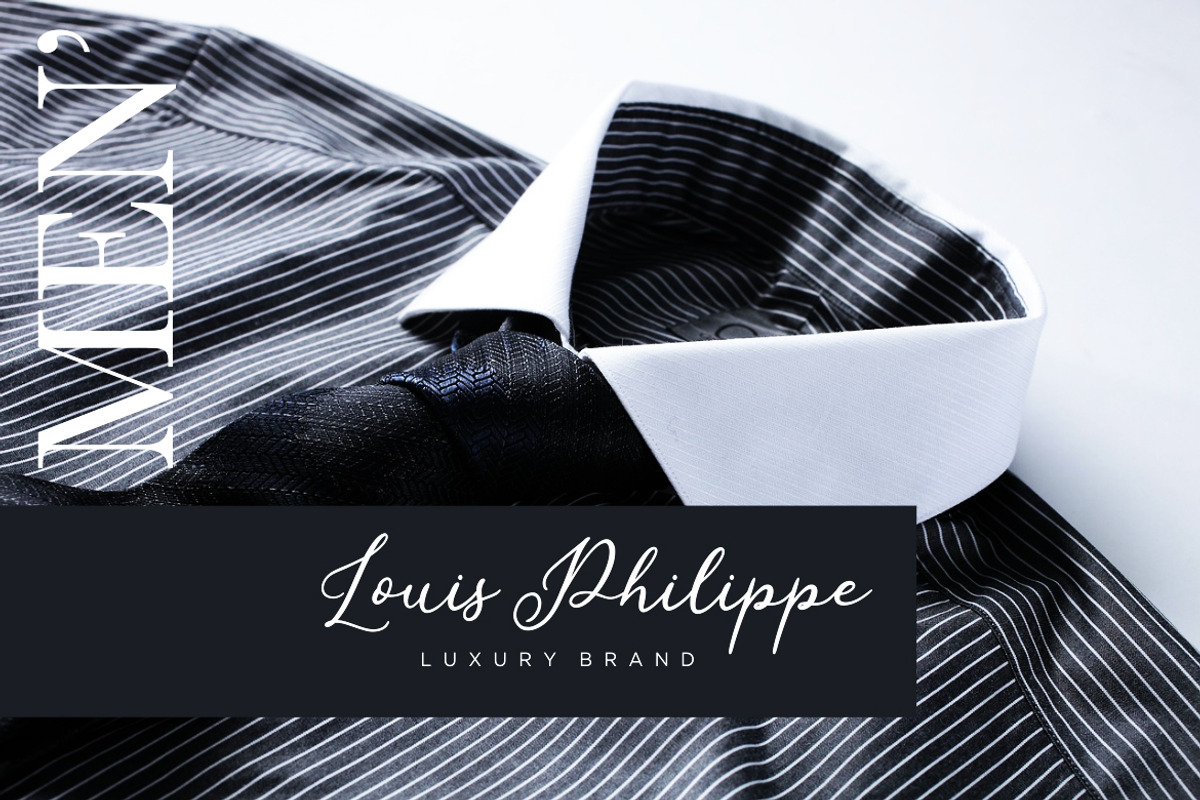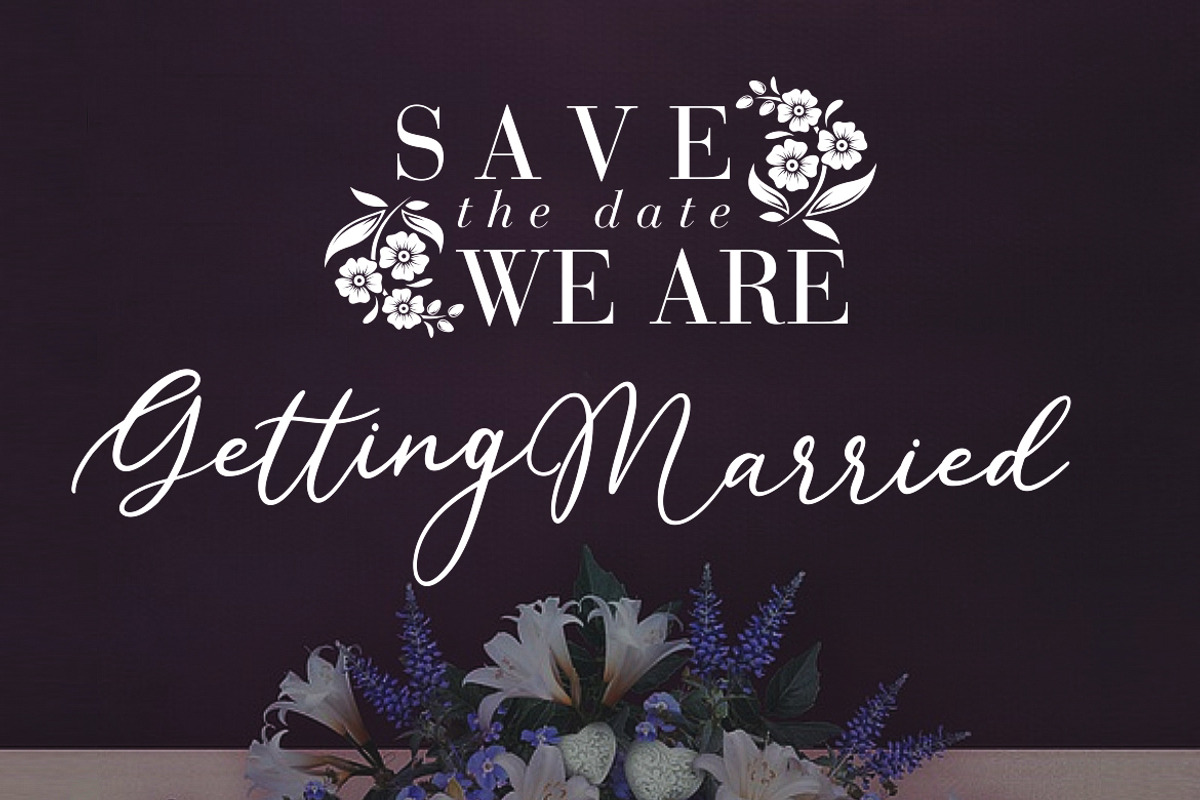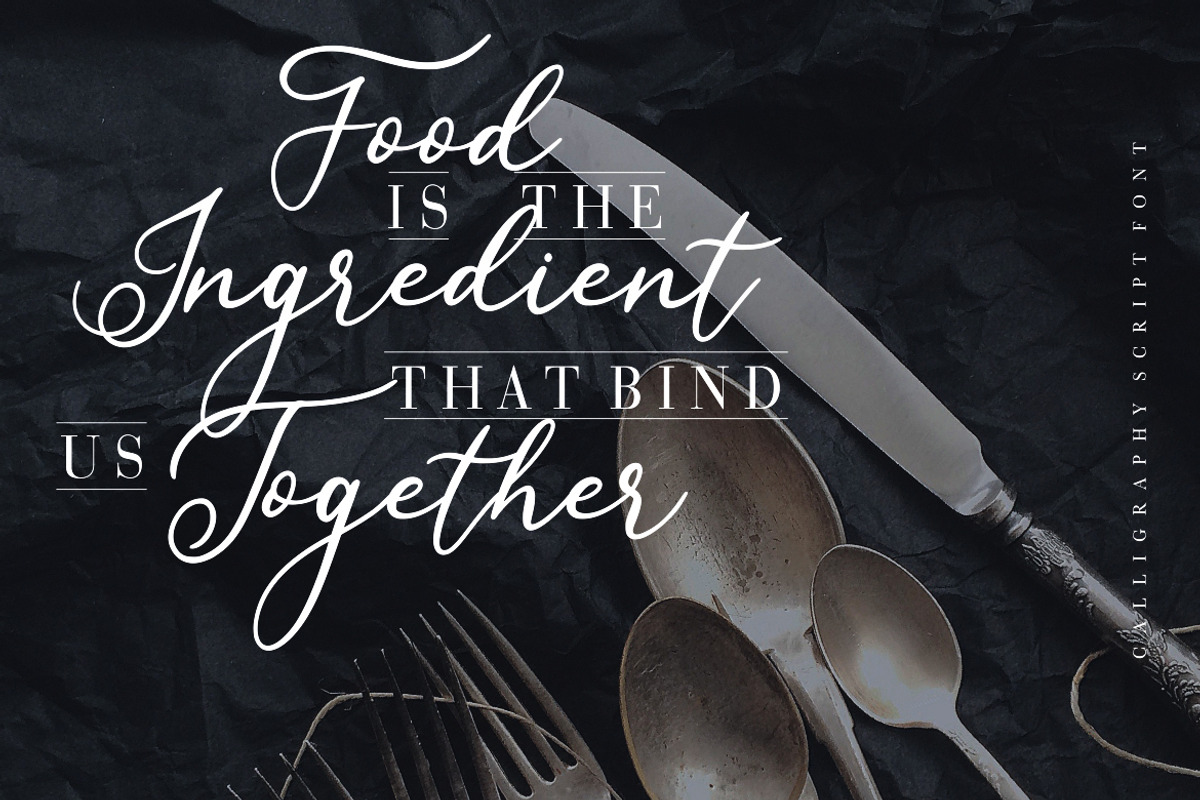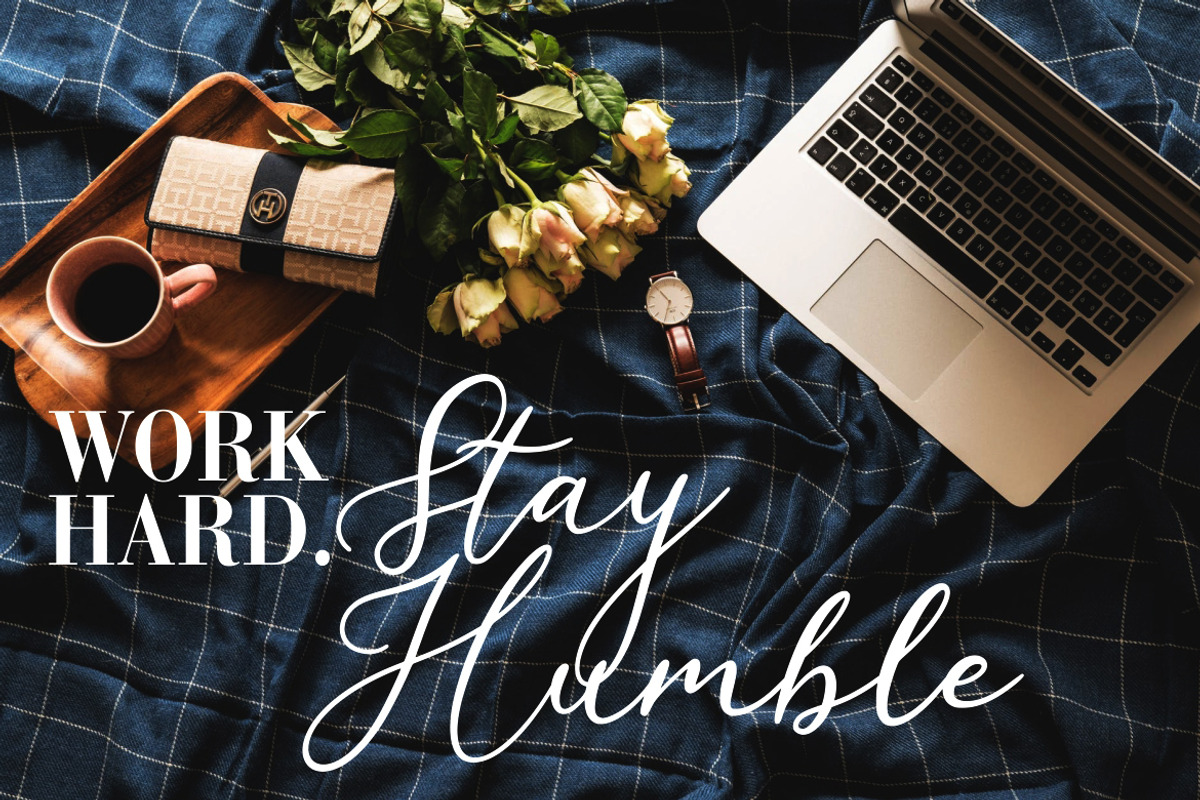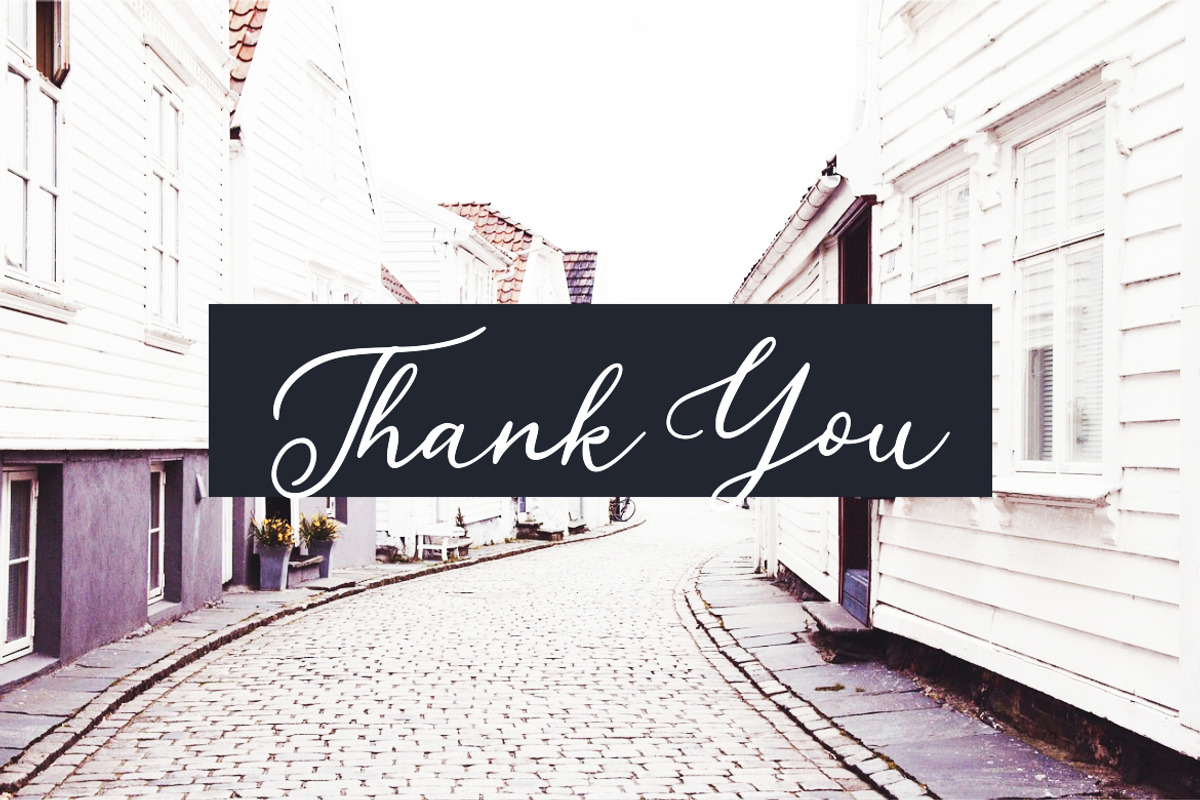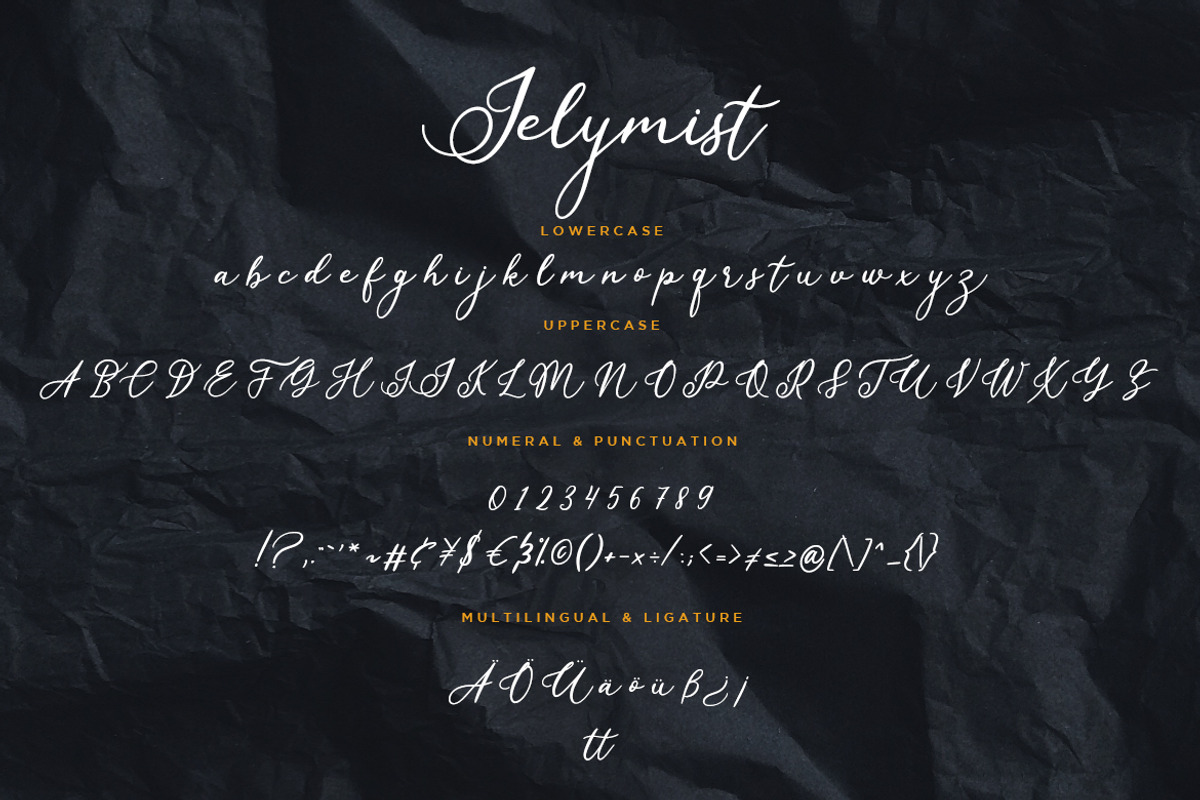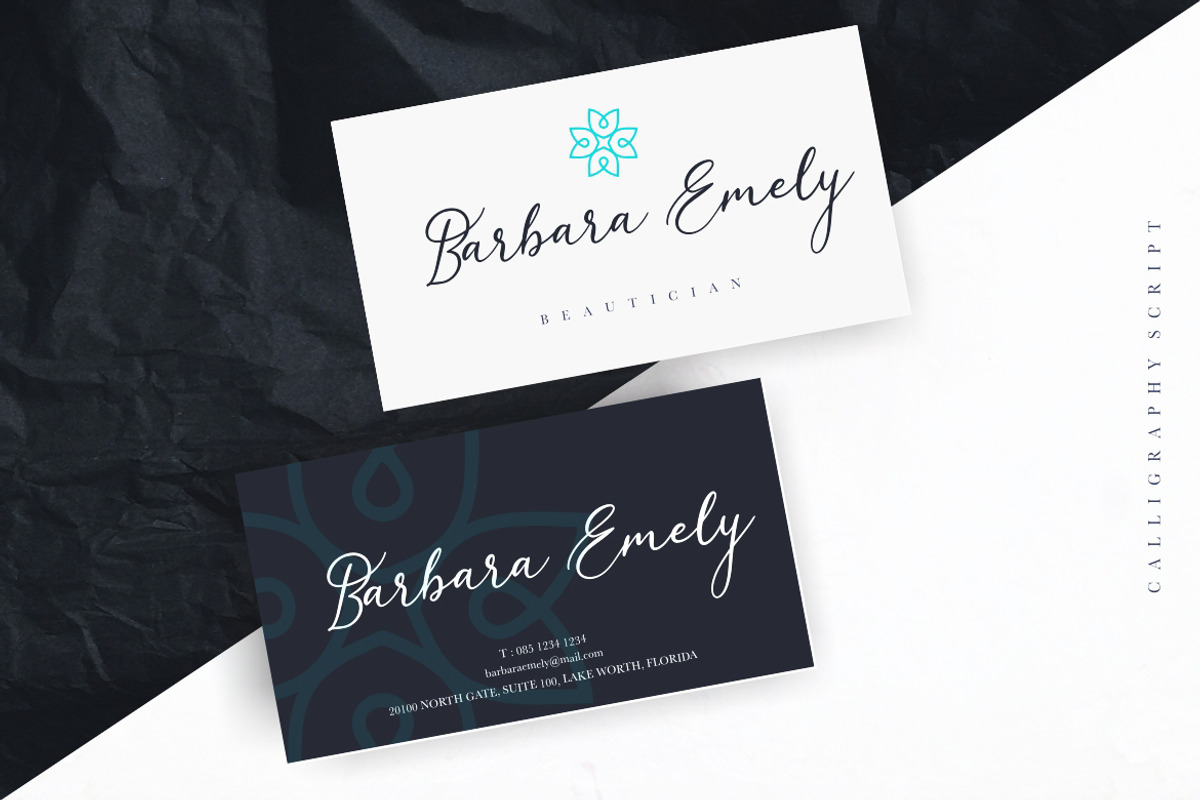
Jelymist Calligraphy Business Font
Jelymist is a calligraphy font script modern with elegant and classy looks.
Jelymist is perfect for branding projects, logo, wedding designs, social media posts, advertisements, product packaging, product designs, label, photography, watermark, invitation, stationery and any projects that need handwriting taste.
- Fonts include multilingual support for; ä ö ü Ä Ö Ü ß ¿ ¡
Jelymist Calligraphy Business Font by Creatype Studio fits naturally into Branding, posters, packaging, typography.